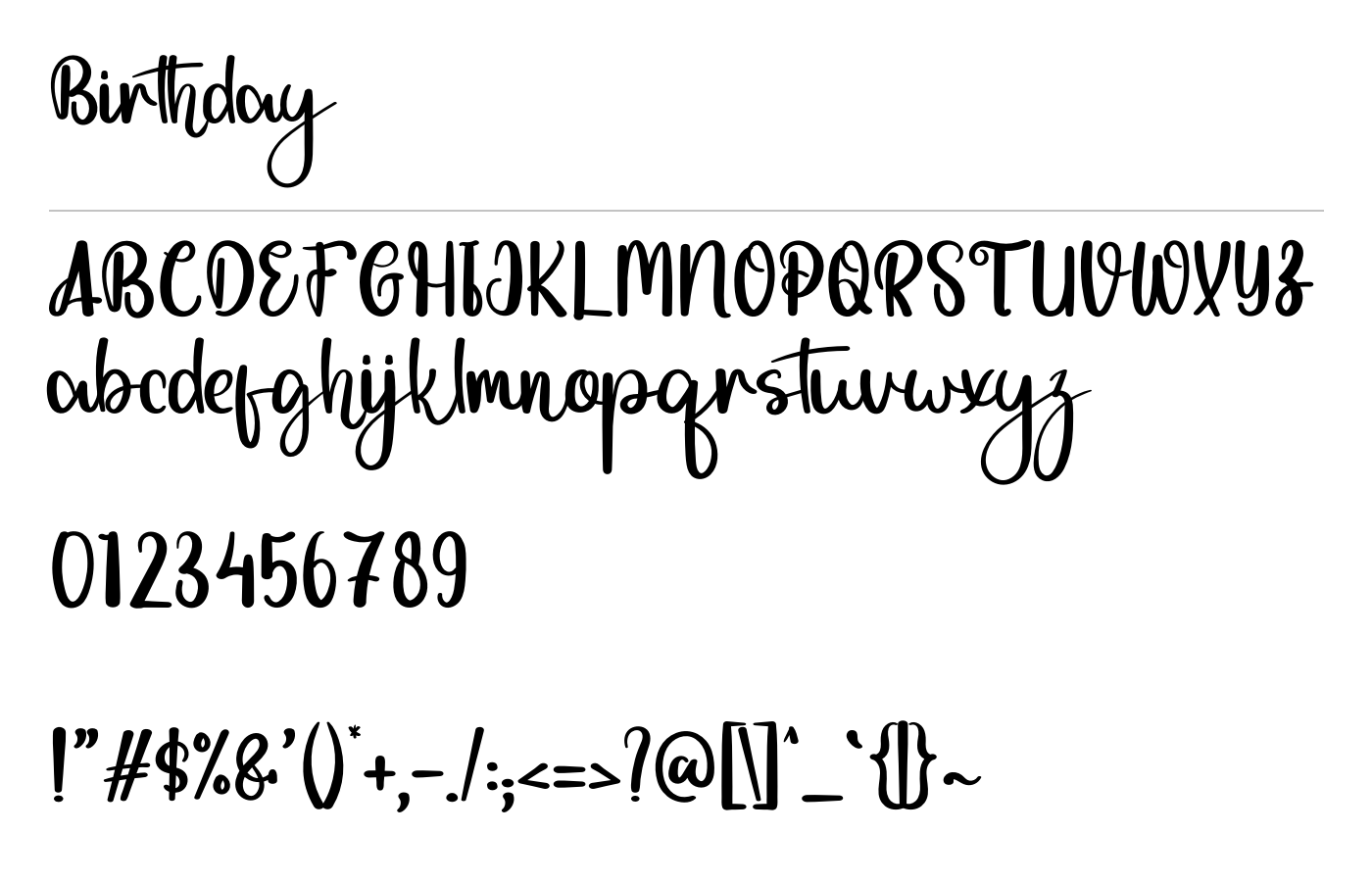
Birthday Font is a playful, handwritten script with a casual and friendly vibe, featuring tall, slightly condensed letterforms and smooth, rounded strokes. Its lively and informal style makes it perfect for festive designs, greeting cards, and creative branding that aims to feel personal and cheerful.
Birthday Font
About Birthday Font